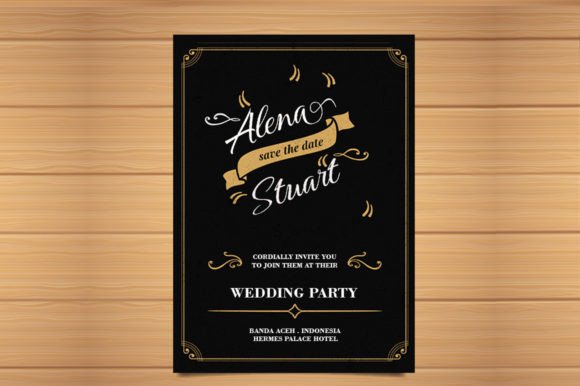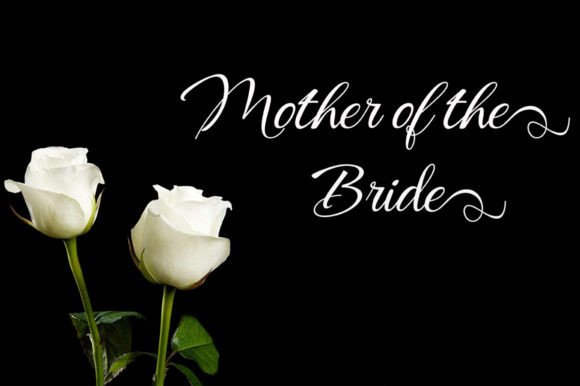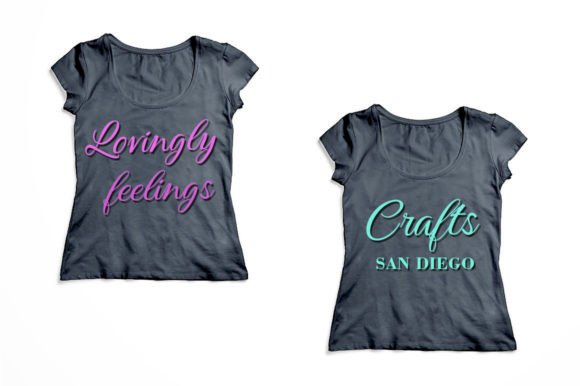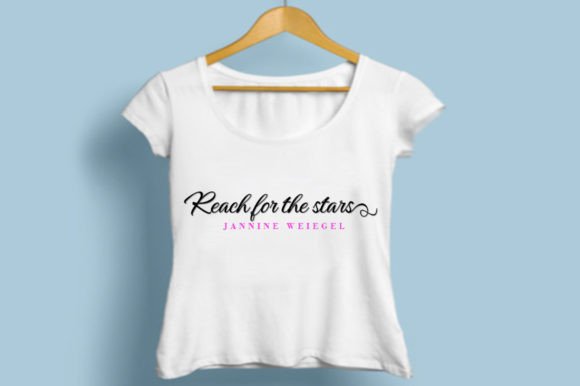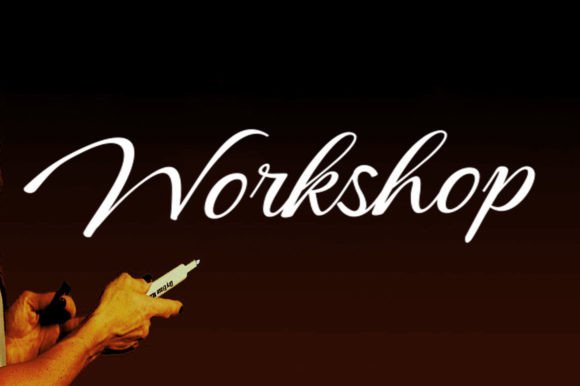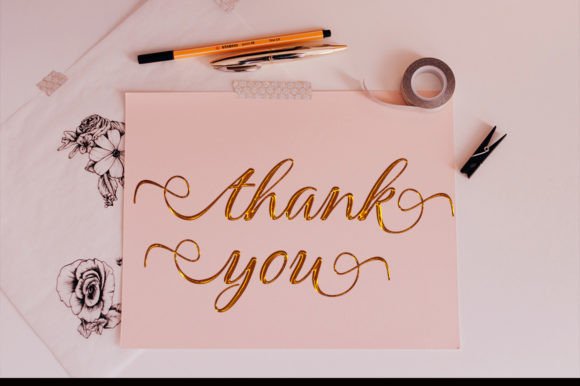
Introduction to Regards Font
Have you ever stumbled upon the perfect font while working on a creative project, and it instantly elevates your entire design? For many designers, that moment is pure magic. For me, it’s a feeling of excitement and joy, knowing that I’ve just discovered a new design resource that can bring my ideas to life. Recently, I found myself in that very moment when I came across the Regards Font, a stunning modern script font that has become my go-to choice for feminine and elegant designs.
The Regards Font is a game-changer for designers, offering a unique and high-quality design resource that’s perfect for a variety of projects, from wedding invitations to business cards. With its irregular baseline and beautiful script style, this font is sure to add a touch of sophistication to any design. Whether you’re looking for a free download or a high-quality purchase, the Regards Font is an excellent choice for designers who value a professional and polished look.
Key Features of Regards Font
- Unique, modern design with a clean and minimalist aesthetic
Honest Review: Regards Font
As a designer, I’m always on the lookout for high-quality fonts to enhance my creative projects. The Regards Font caught my attention, and I decided to give it a try.
What works well: ✨ The Regards Font has a clean and modern design that works perfectly for digital interfaces. The transparent background makes it easy to layer over other elements, and the free download option is a bonus for designers on a budget.
Key features:
- Modern and clean design
- High-quality font
- Excellent for digital interfaces and creative projects
Any limitations: ⚠️ While the Regards Font is a great addition to any designer’s toolkit, it may not be suitable for projects that require a more traditional or vintage aesthetic. Additionally, the font may not be as customizable as some other options.
Overall impression: I’m impressed with the Regards Font’s versatility and high quality. It’s a great resource for designers who want to add a modern touch to their creative projects. With its transparent background and free download option, it’s definitely worth checking out.
Regards Font
Regards Font is ideal for various creative projects, such as designing logos, creating graphics for social media, and making presentations. Its high quality and versatility make it a valuable design resource.
Getting the Most Out of Regards Font
To get the most out of Regards Font, experiment with different font sizes, colors, and combinations. You can also use it in conjunction with other design elements, such as images and shapes, to create visually appealing graphics.
Alternatives to Regards Font
Montserrat is a modern sans-serif font ideal for creative projects that require a clean and minimalistic design. It’s perfect for titles and headings due to its high contrast and strong vertical strokes. Montserrat is available for free download and supports both Latin and Cyrillic scripts. When to use: Montserrat is ideal for modern websites, mobile apps, and digital products. Compared to Regards Font, Montserrat has a more geometric feel and is better suited for digital displays.
Lato is a popular sans-serif font known for its friendly and approachable feel. It’s a great choice for projects that require a humanistic touch, such as blog posts, articles, and social media content. Lato supports a transparent background, making it perfect for creative projects that require a subtle design. When to use: Lato is ideal for blogs, articles, and social media content. Compared to Regards Font, Lato has a more relaxed feel and is better suited for body text.
Open Sans is a highly legible sans-serif font designed for digital use. It’s perfect for projects that require a high-quality font with excellent readability. Open Sans supports a wide range of languages and is available for free download. When to use: Open Sans is ideal for digital products, websites, and mobile apps. Compared to Regards Font, Open Sans has a more neutral feel and is better suited for body text.